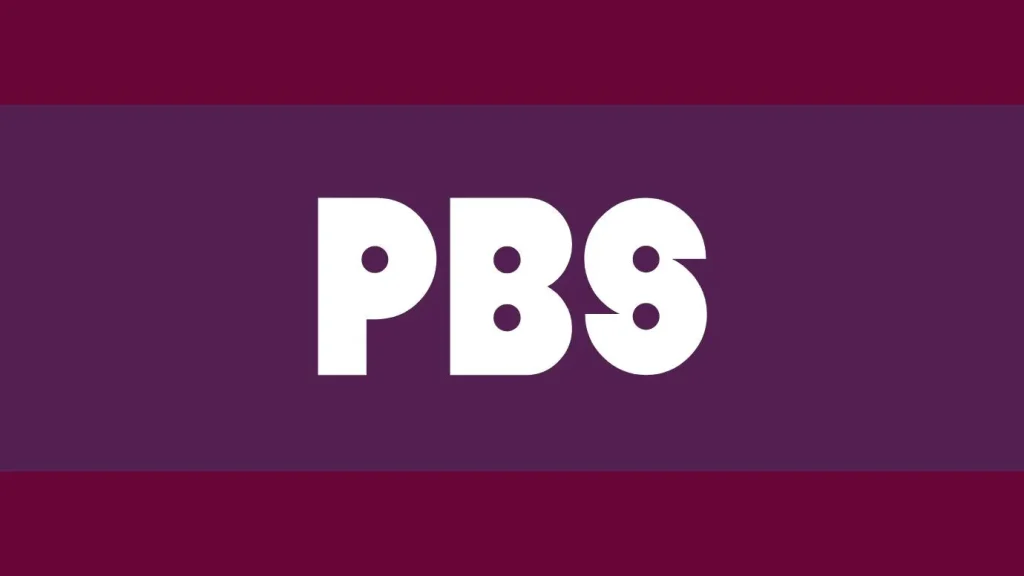
Pbs Logo Font is designed by Ernie Smith and Herb Lubalin. This is a nice and stunning typeface that has an attractive character set. The text style has an amazing fancy design.
This typeface offers a variety of interesting features that make it ideal for numerous text designs. It has special features and stylistic characteristics.
While creating new and original designs, you can easily pair it with any other typeface like knight font. This design would be excellent for long-term projects since it helps to produce simple and attractive layouts. This style can be created by using a generating tool online.
Usage of Pbs Logo Font in Brands
The typeface is appropriate to create logos, flyers, mugs, postcards, and more. It is ideal for a variety of styles due to its fashionable glyphs.
After being shown in your computer system, whether for viewing or printing, the letters will remain the same. The style is useful for your logo, commercial, T-shirt, labeling, and welcome cards.
The font can be used for a variety of logo design projects. You may use this gorgeous typeface to create eye-catching posters or quotes. It is appropriate for designing posters, different kinds of social media posts, and logos.
This contemporary font is perfect for a range of printing and digital design tasks, and transportation-related activities. The beautiful typeface can be used to create stunning greeting cards, wedding cards, and birthday card designs.
Who is the designer of the Pbs Logo Font?
Pbs Logo Font is designed by Ernie Smith and Herb Lubalin. The letters are exceptionally sharp and have a clean design.
What kind of text style is the Pbs Logo?
This excellent typeface is a member of the fancy category. This typeface contains unique glyphs that give a unique design to any project.
Where can I utilize the Pbs Logo font?
This lovely typeface can be used for a variety of logo design projects. You may use this gorgeous typeface to create eye-catching posters or quotes.
Does the Pbs Logo Textual style have great readability?
The typeface has amazing clarity since it has an interesting design. The characters are well-spaced and simple to read.